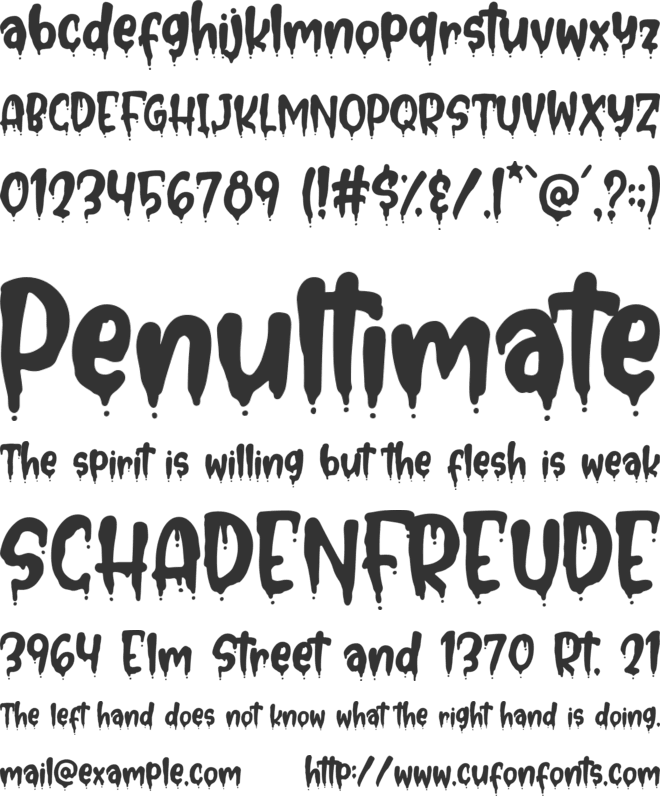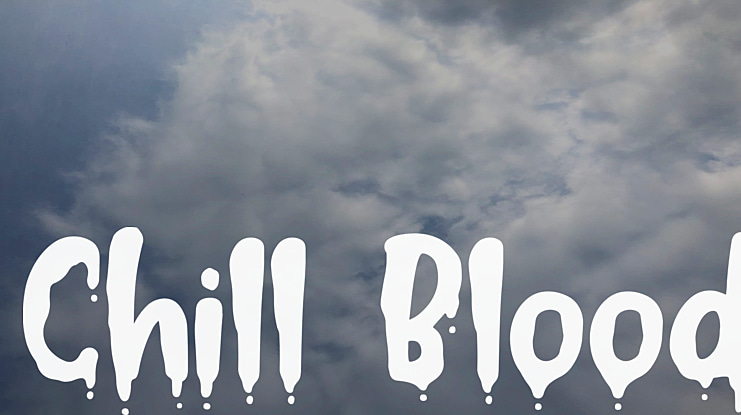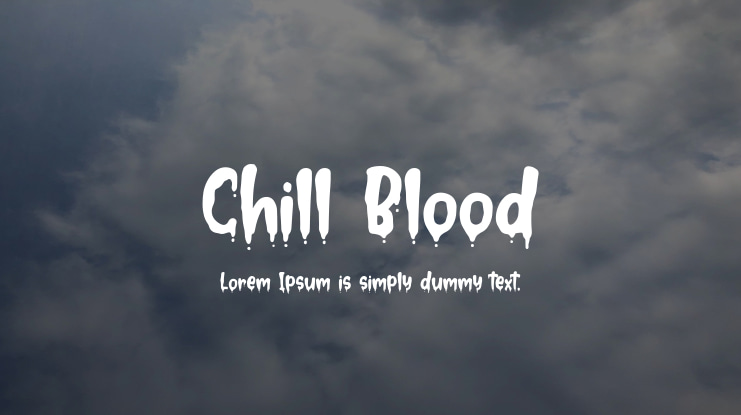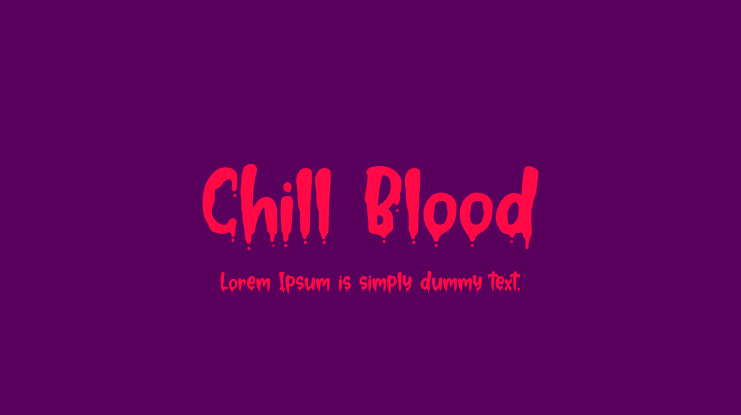
Chill Blood Font
This enchanting font will turn any creative idea into a true standout. Perfect fit for all of your logos, branding, social media, etc. Get creative with its unique playfulness, and use it to brighten up any crafting project!